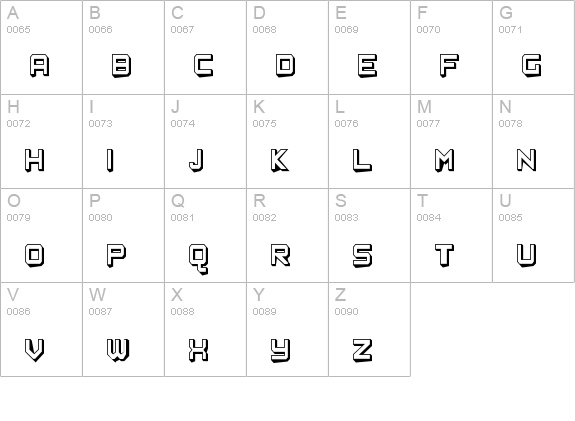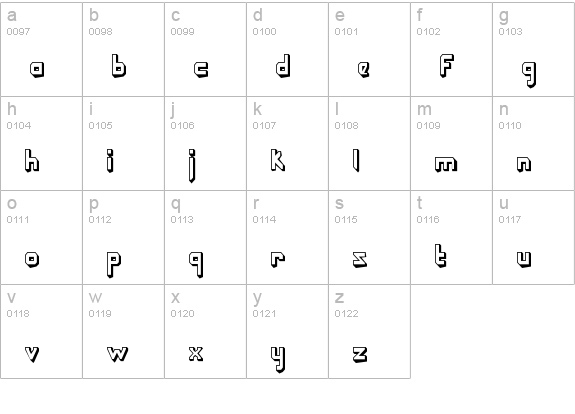
Introducing Hyperdigital Shadow, an awe-inspiring font that seamlessly combines futuristic elements with a touch of vintage charm. This unique typeface is designed to captivate and mesmerize, making it the perfect choice for projects that demand attention and intrigue. Hyperdigital Shadow stands out from the crowd with its bold and edgy letterforms, which are expertly crafted to create a captivating visual impact. Each character exudes a sense of dynamic energy, with sharp angles and sleek curves that effortlessly blend together. The intricate details and carefully placed shadows give this font a sense of depth and dimension, adding an extra layer of visual interest. This font is not only visually stunning, but it also offers versatility and flexibility in its usage. Whether you're designing a cutting-edge technology brochure, a retro-inspired poster, or a futuristic website, Hyperdigital Shadow will effortlessly elevate your project to new heights. And the best part? Hyperdigital Shadow is available for free! Yes, you read that right. This incredible font can be downloaded and used without any cost at FontsMarket.com. We believe in making high-quality design accessible to all, and Hyperdigital Shadow is our way of extending that philosophy to the world of typography. So, don't miss out on this amazing opportunity to enhance your designs with the mesmerizing allure of Hyperdigital Shadow. Download it now from FontsMarket.com and let your creativity soar to new dimensions.